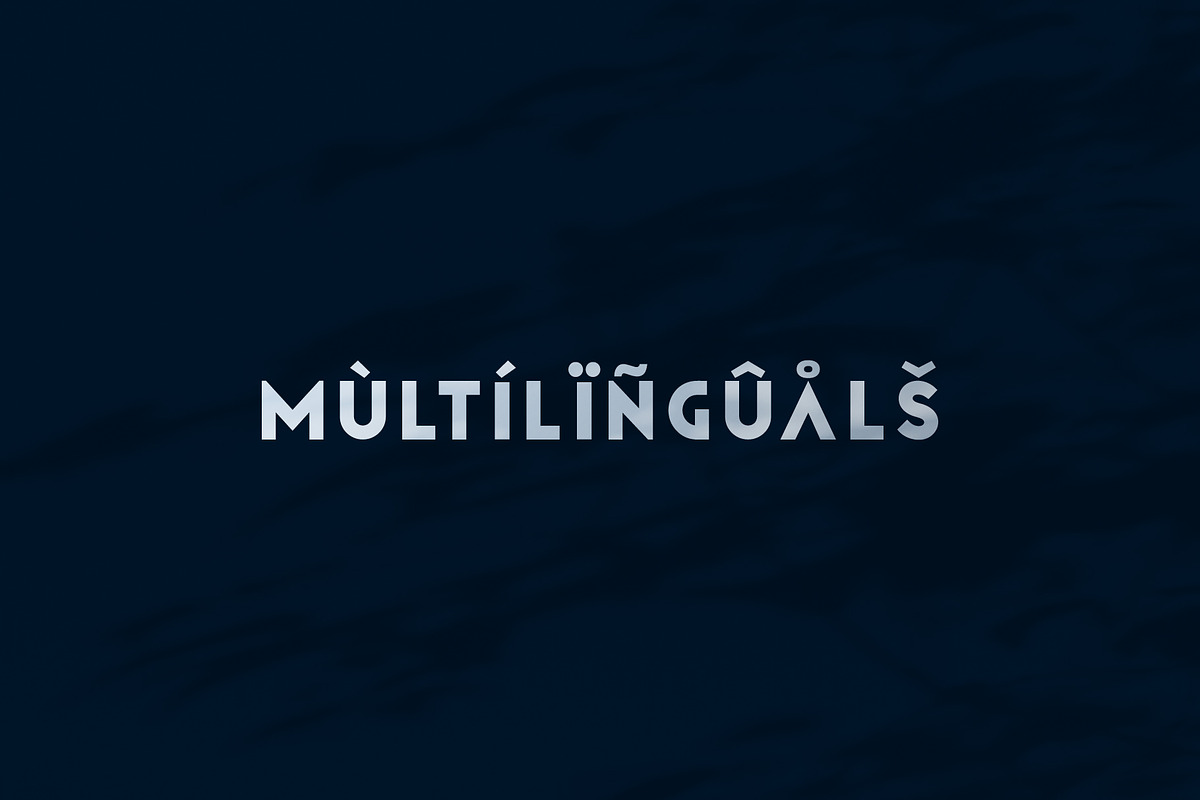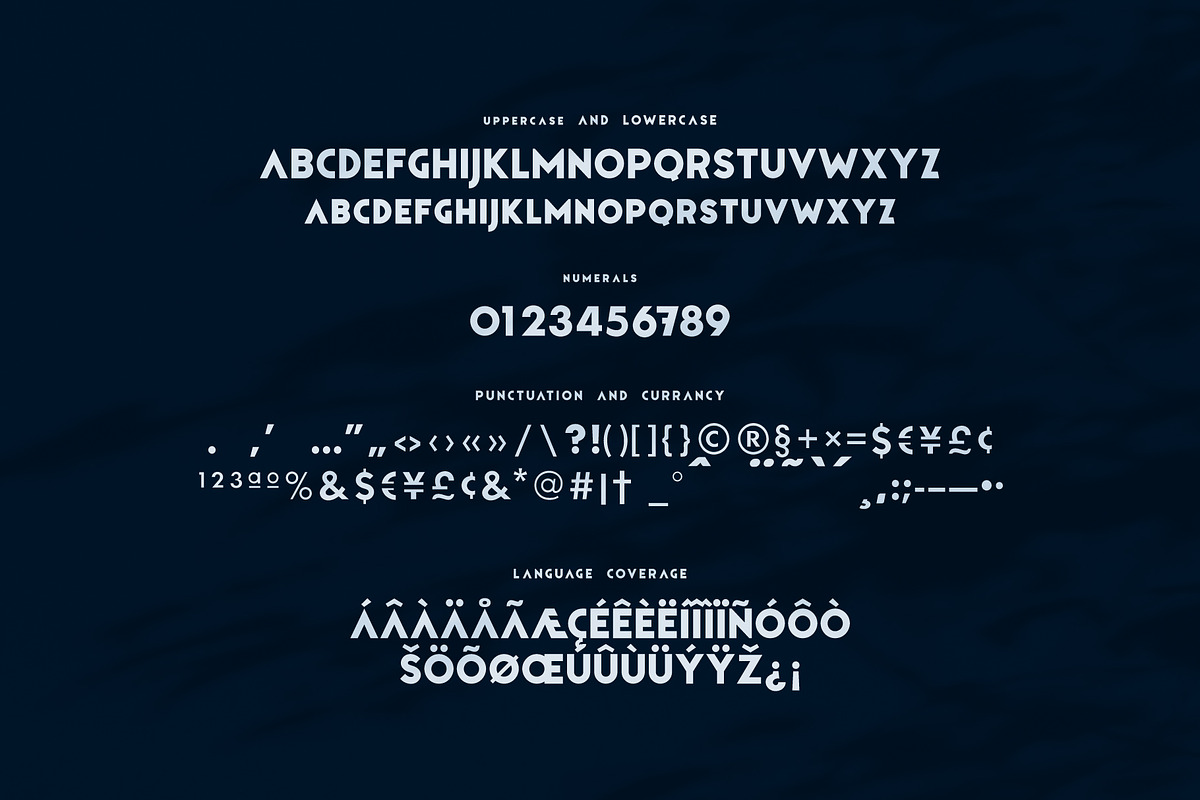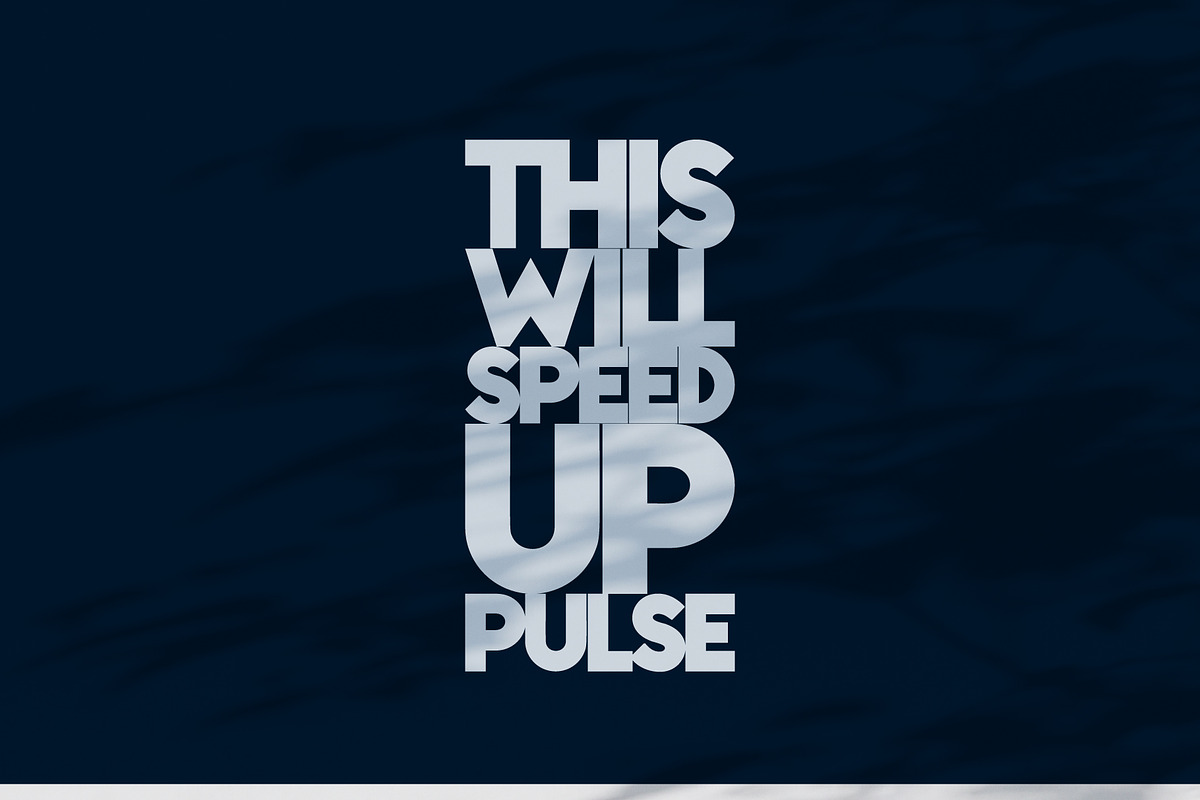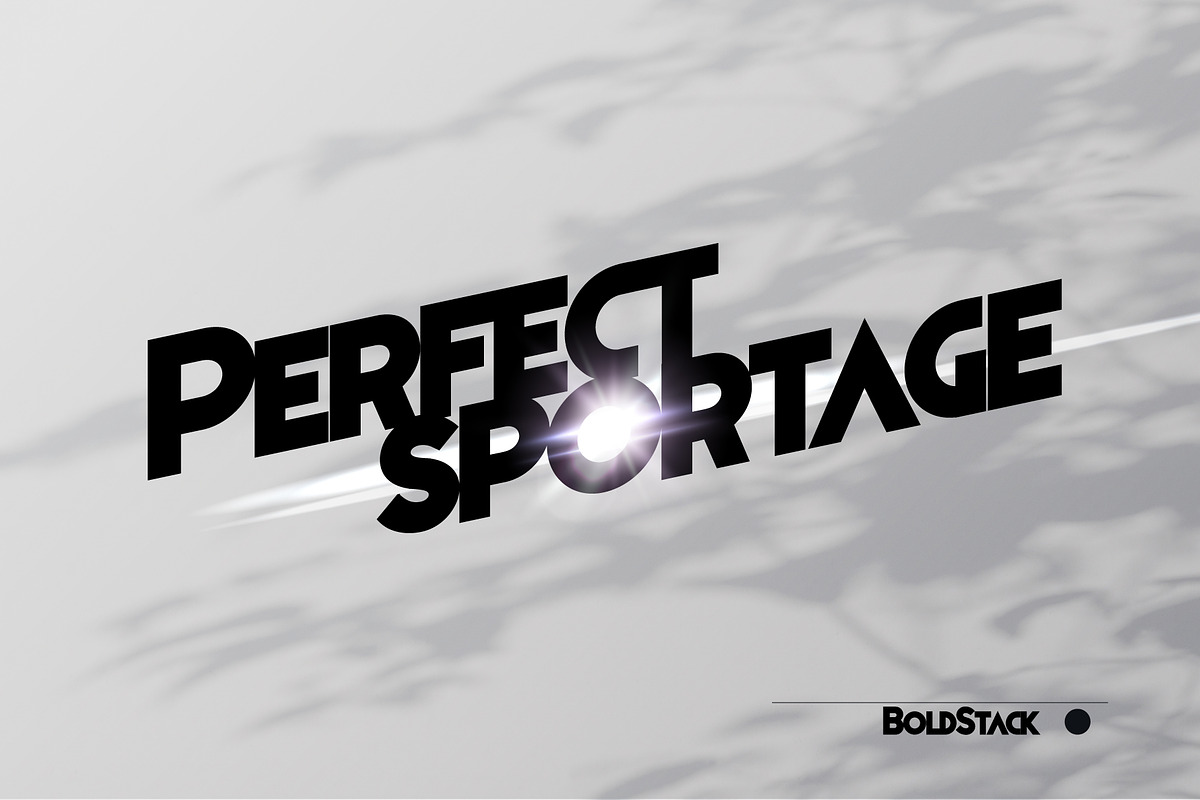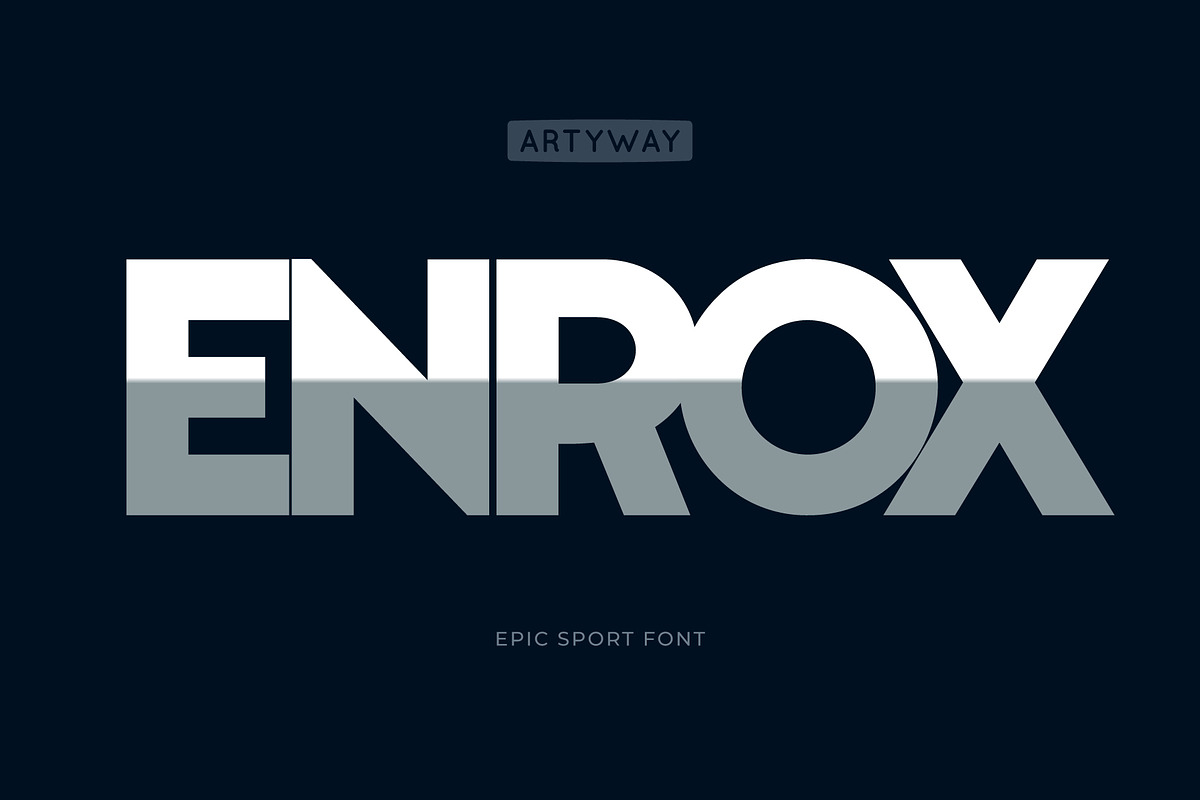
Sport Headline Font
Enrox Font – Strength and Impact Redefined
Experience the boldness of the Enrox Font, a robust typeface designed to deliver powerful messages with unmatched clarity. Its clean, solid appearance ensures your text stands out, even in limited spaces, making it perfect for impactful designs.
- Attention-grabbing headlines and posters
- Branding projects that demand clarity and strength
- Editorial layouts and advertising materials
- Digital media designs requiring space efficiency and readability
- Uppercase and lowercase letters
- Numbers, punctuation, and currency symbols
- Language coverage for multilingual support
Achieve visual impact and precision with the Enrox Font. A bold statement for designers aiming to captivate audiences with strength and style.